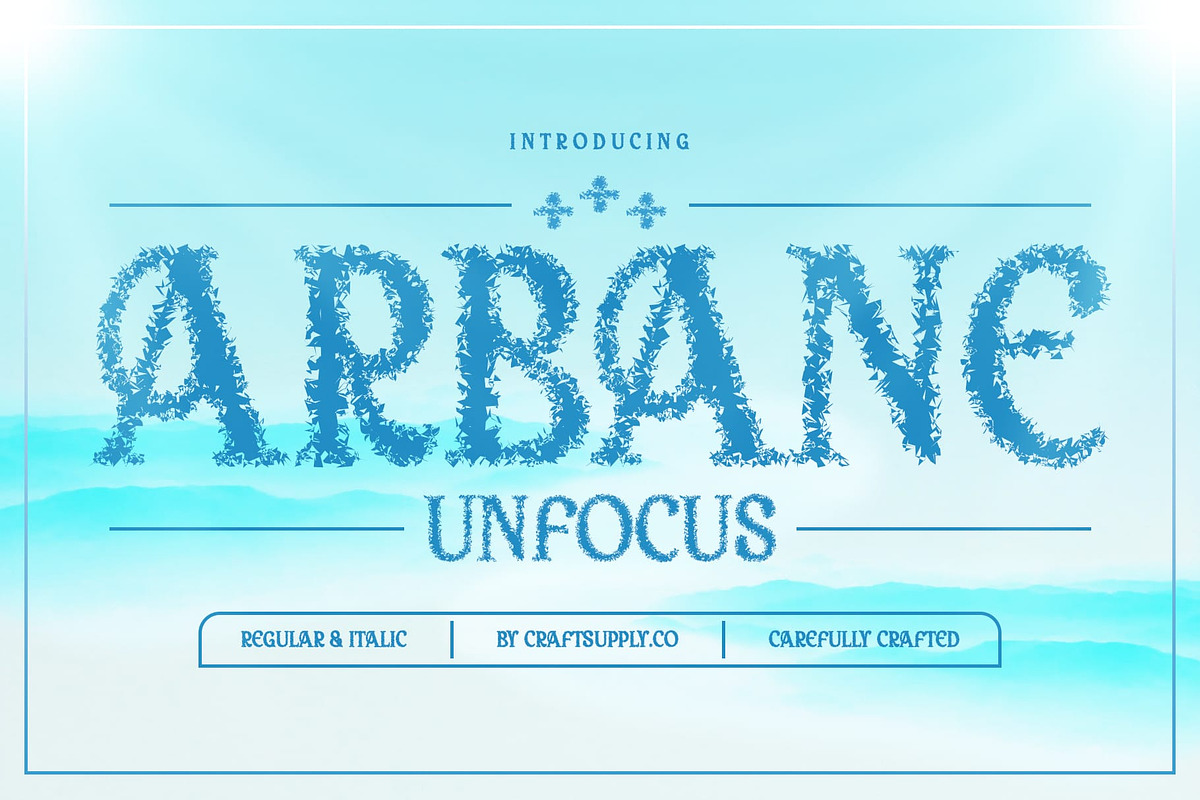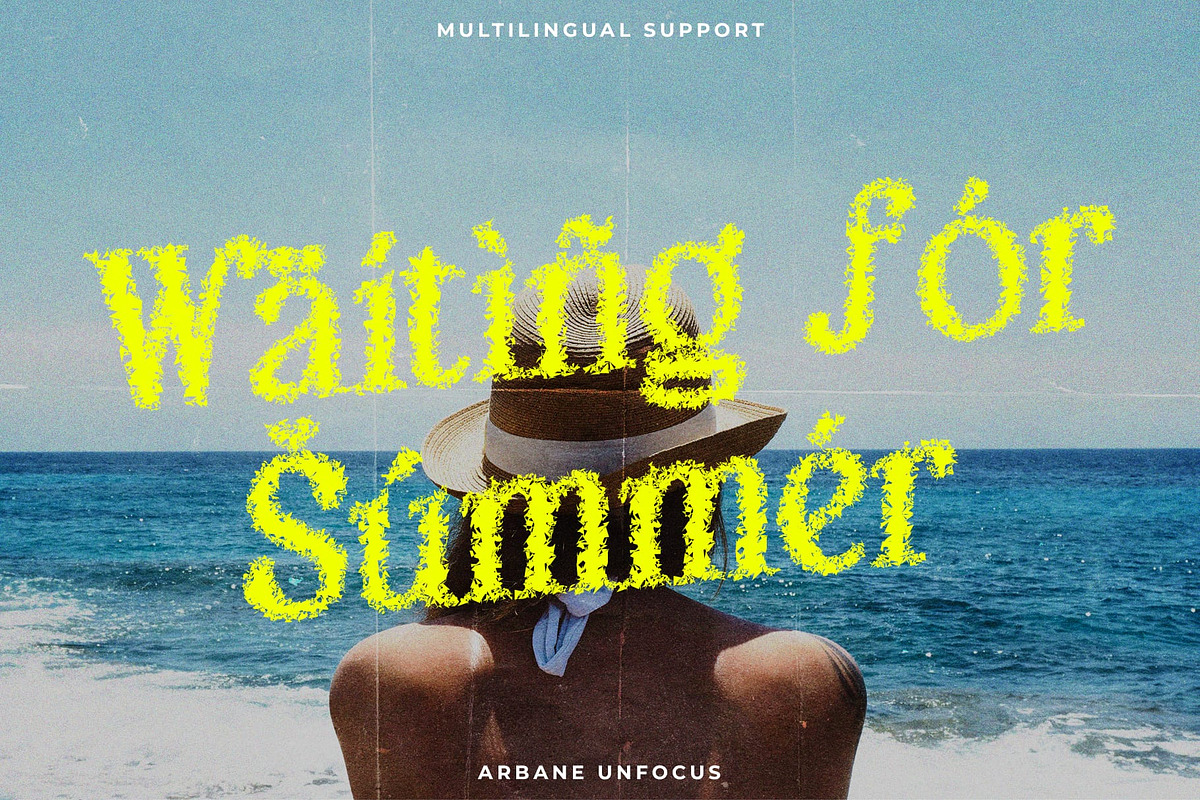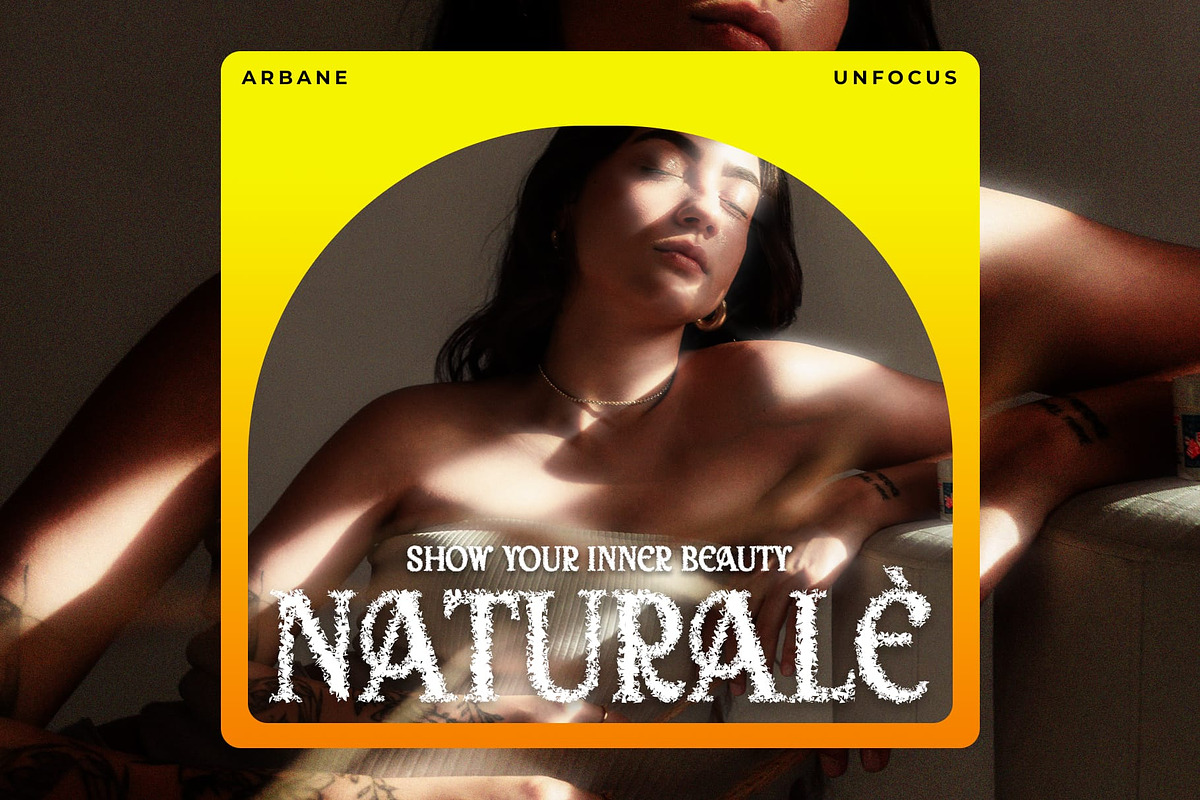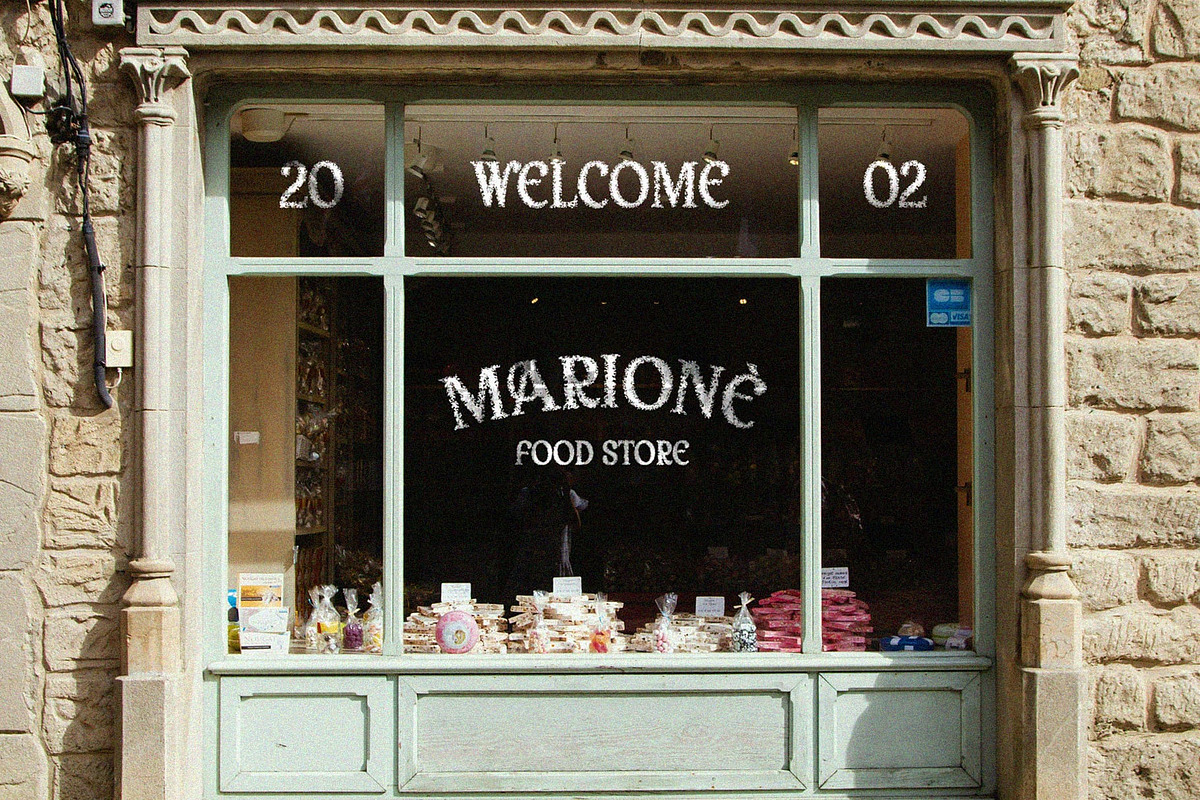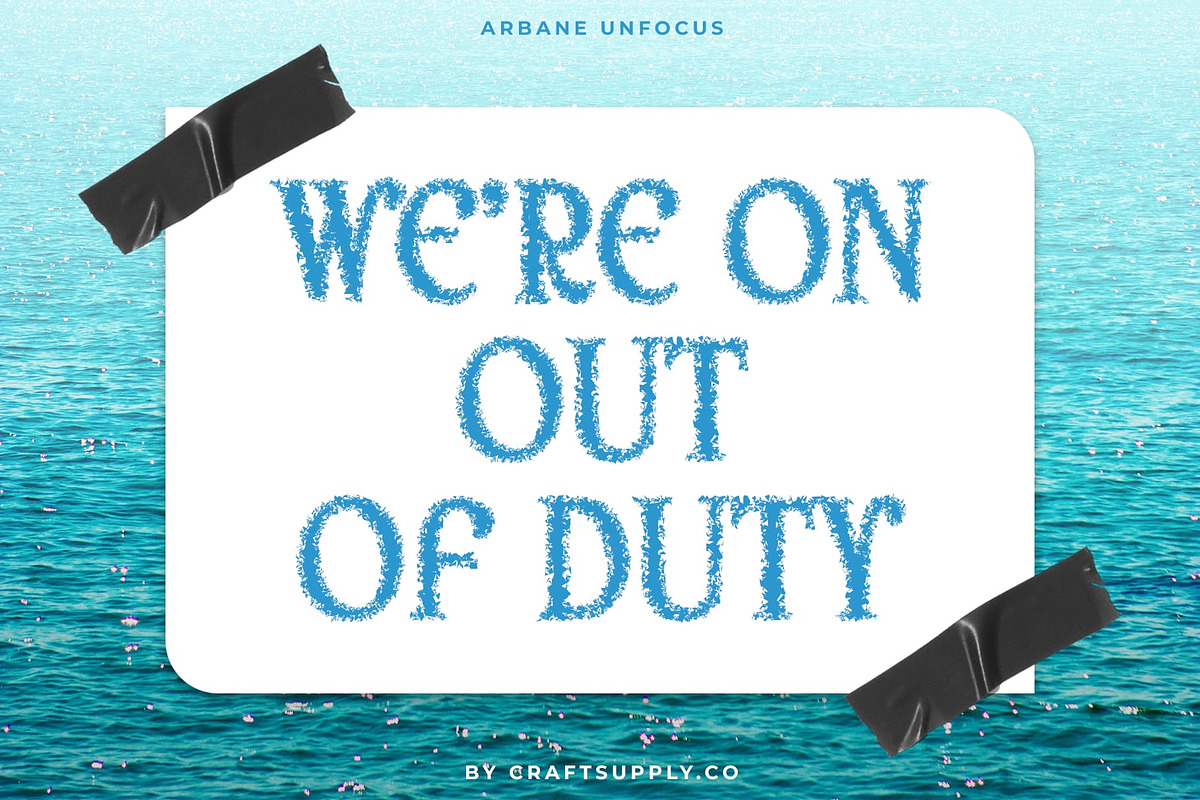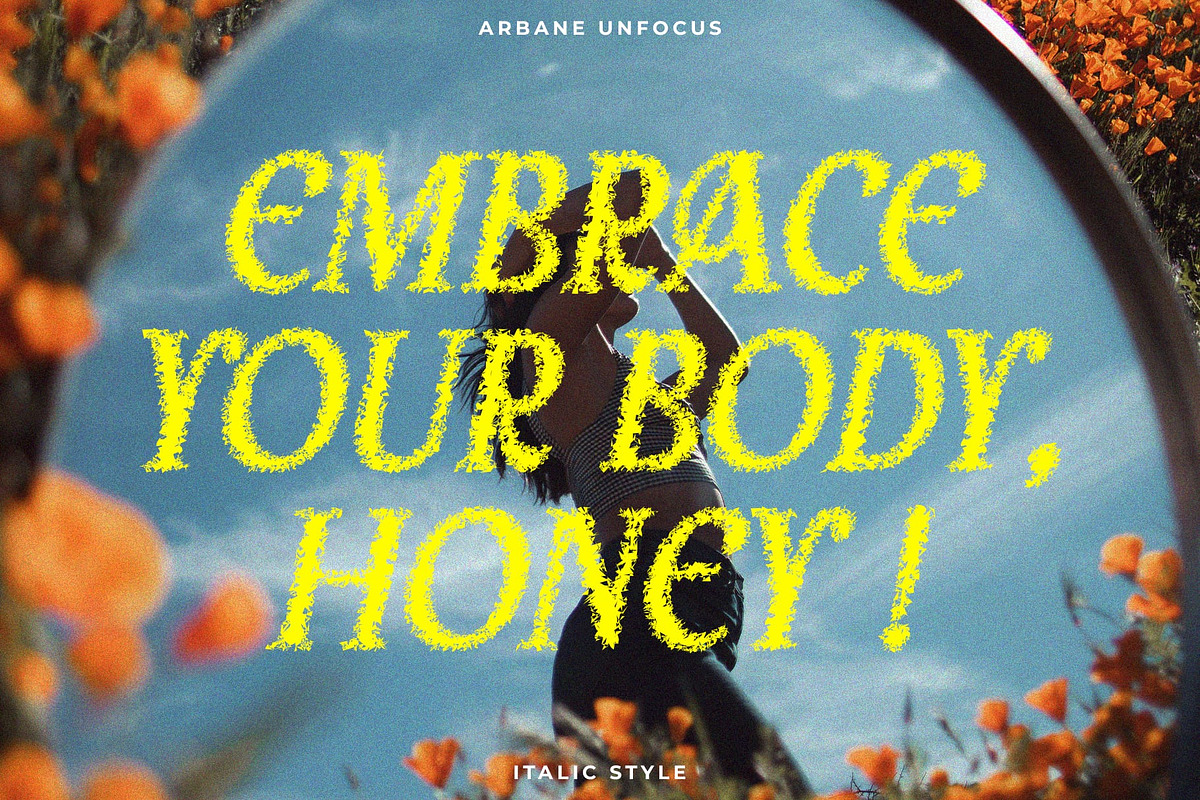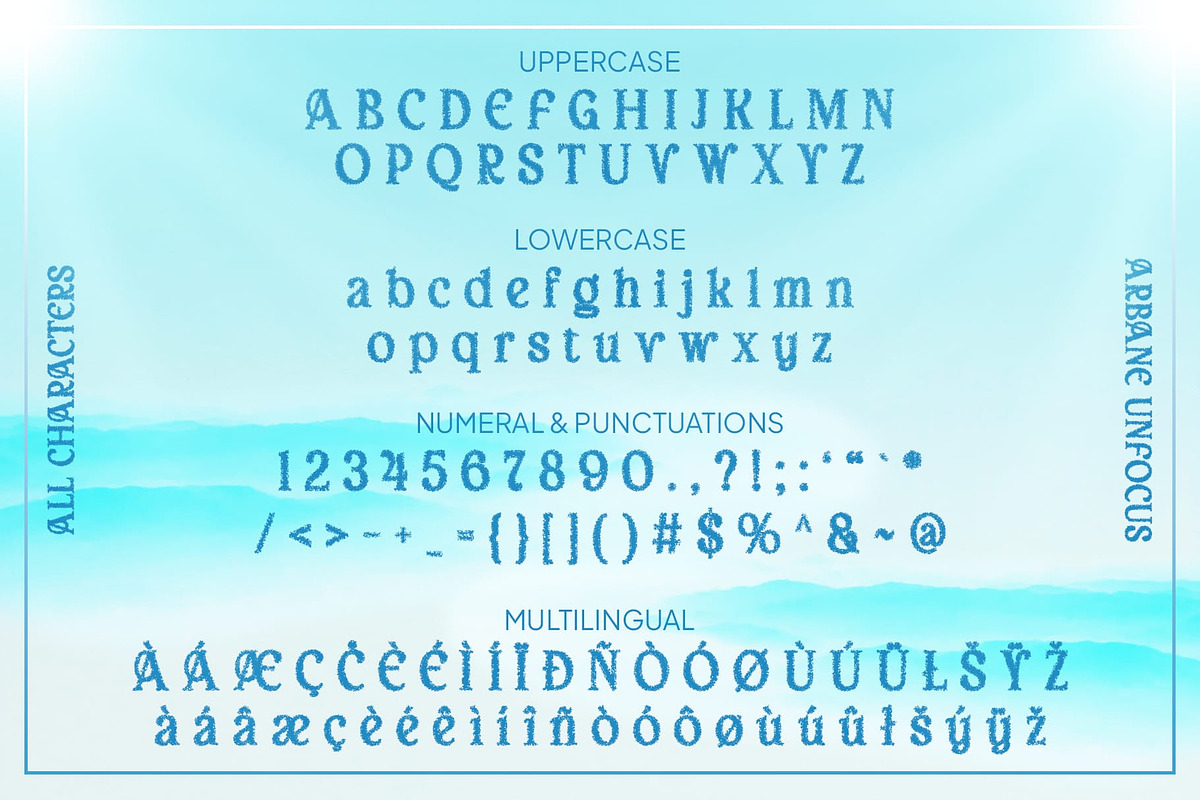
Arbane Unfocus
Arbane Unfocus: Classic Elegance with a Modern Twist
Art Nouveau Serif Font with Unfocus Effect
Arbane Unfocus is an Art Nouveau serif font that merges classic beauty with a modern unfocus effect. The graceful, flowing shapes of Art Nouveau exude luxury, while the unfocus effect adds an intriguing artistic dimension, creating a unique and captivating design.
Elegant and Luxurious
The elegant, flowing shapes of Arbane Unfocus convey a sense of sophistication and luxury, perfect for designs that require a touch of classic beauty. This font is ideal for wedding invitations, luxury branding, and art posters, where elegance is key.
Innovative Unfocus Dimension
The unfocus effect introduces a modern twist to the traditional Art Nouveau style, adding depth and interest to your designs. This innovative blend of classic and contemporary elements ensures your projects stand out with a distinctive and artistic aesthetic.
Versatile for Creative Projects
Arbane Unfocus is suitable for a variety of design applications, from sophisticated wedding invitations to stylish luxury branding and artistic posters. The combination of Art Nouveau elegance and the unfocus effect makes this font versatile and ideal for creative projects that aim to highlight an elegant and innovative aesthetic.